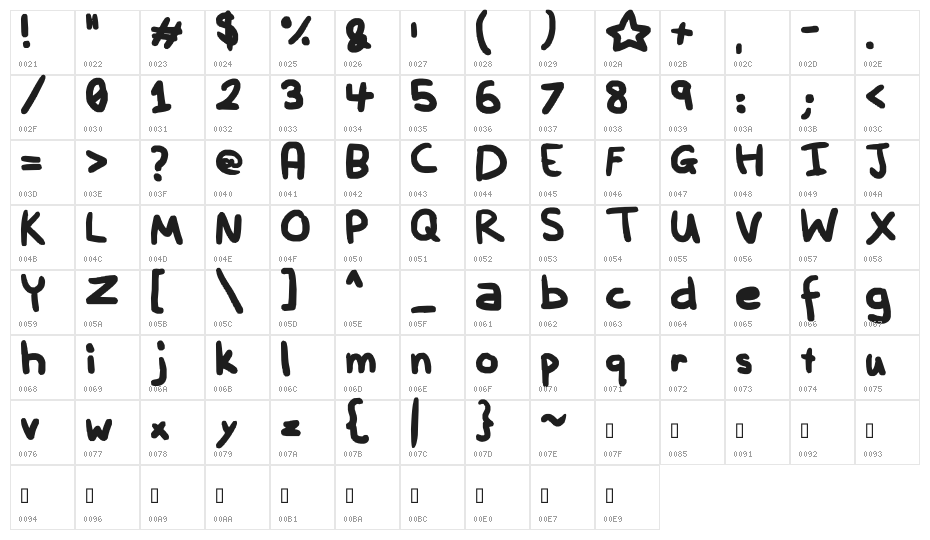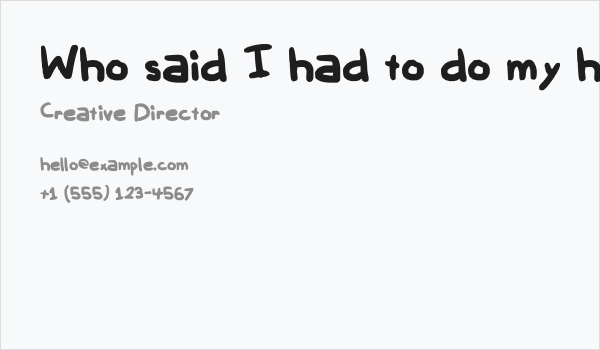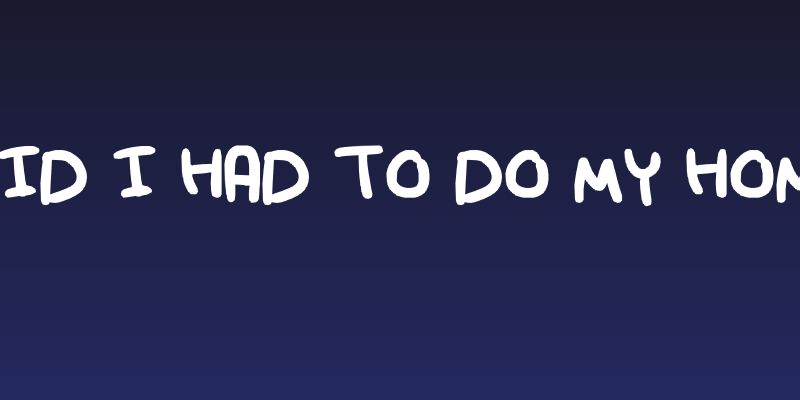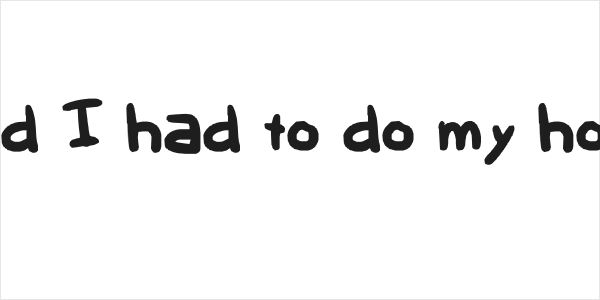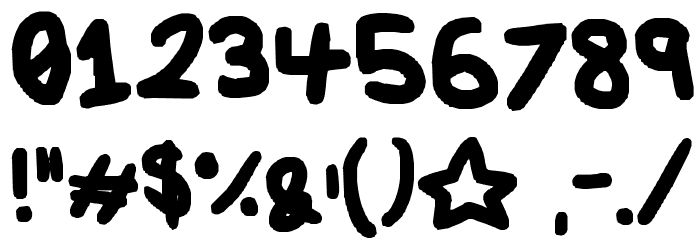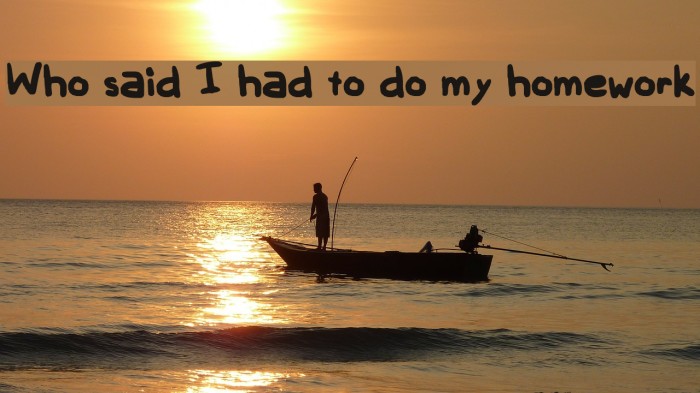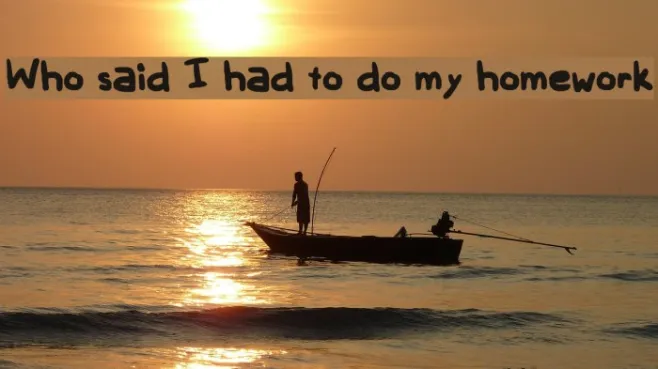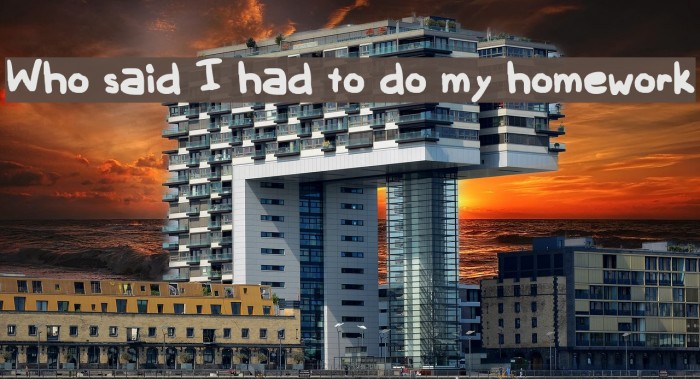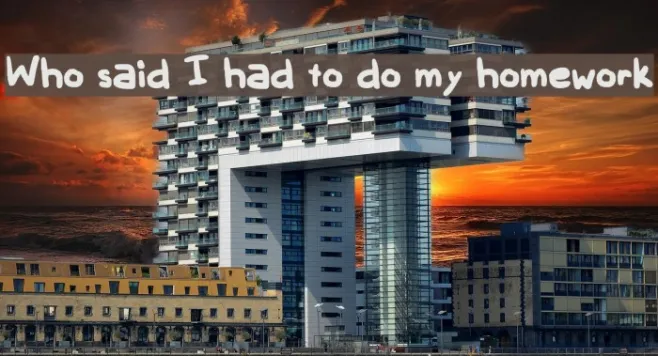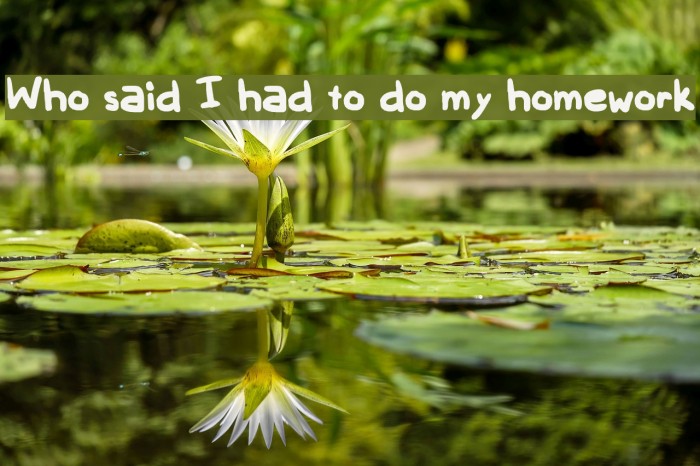
Who said I had to do my homework Font
Who said I had to do my homework Description
This playful and bold font features a handwritten style with a casual, informal appearance. The characters are rounded and slightly irregular, giving it a whimsical and friendly feel. The uppercase and lowercase letters maintain a consistent weight, while the numbers and special characters complement the overall design with their bold and approachable look. This font is perfect for projects that require a touch of fun and creativity, making it ideal for children's books, playful branding, or casual invitations.
| Proposed Projects | Children's books, playful branding, casual invitations, greeting cards, and informal posters. |